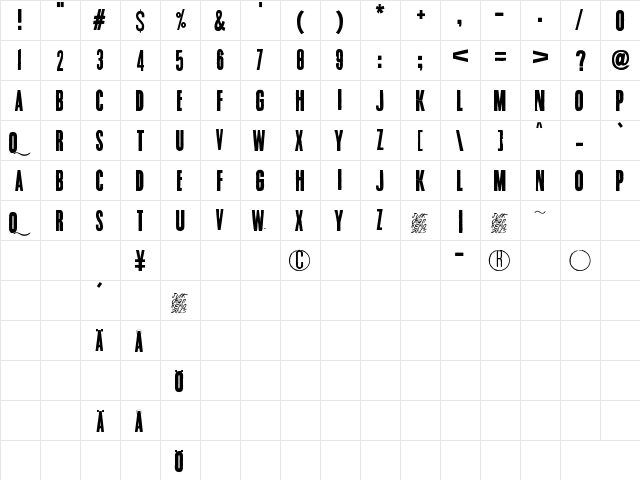
Endrophenomeua Regular
Design Context for Endrophenomeua Typeface
Endrophenomeua is a composed and adaptable typeface that performs quietly and consistently across a wide range of design contexts.